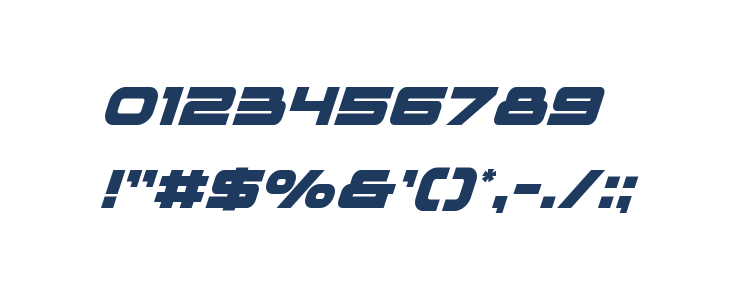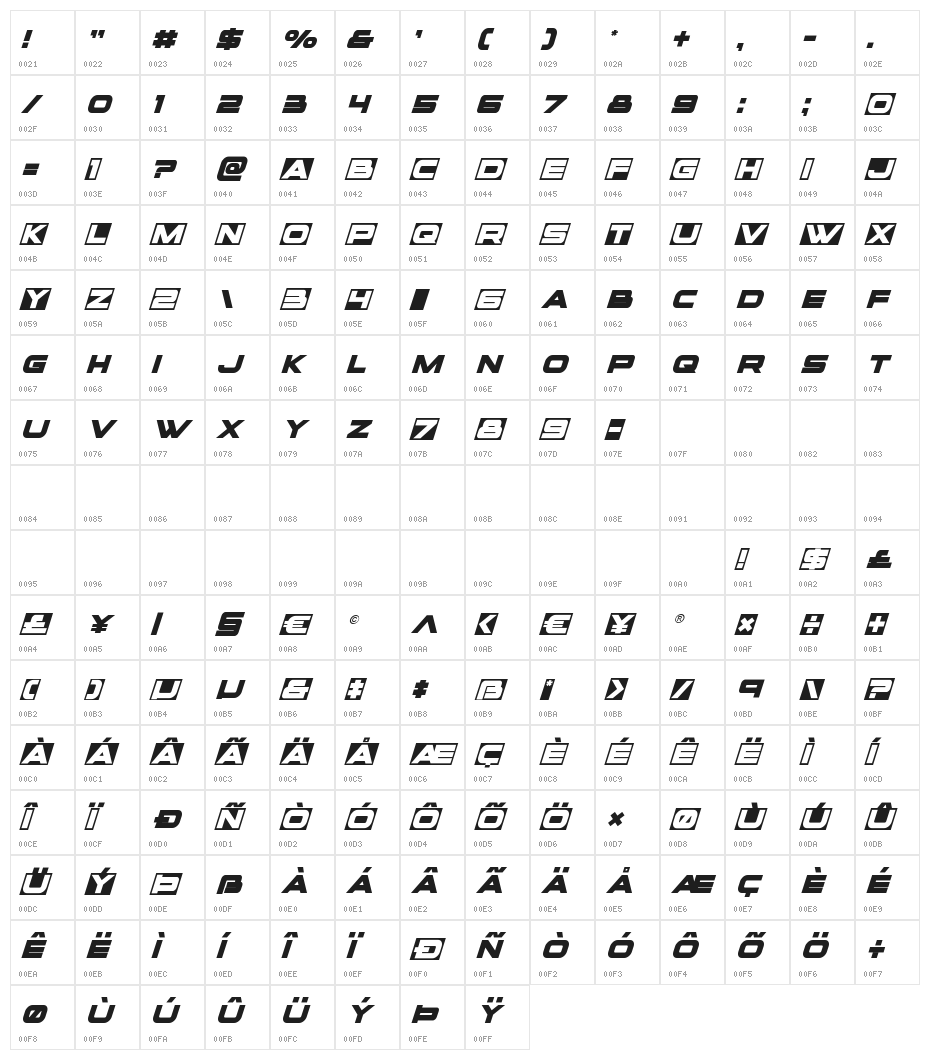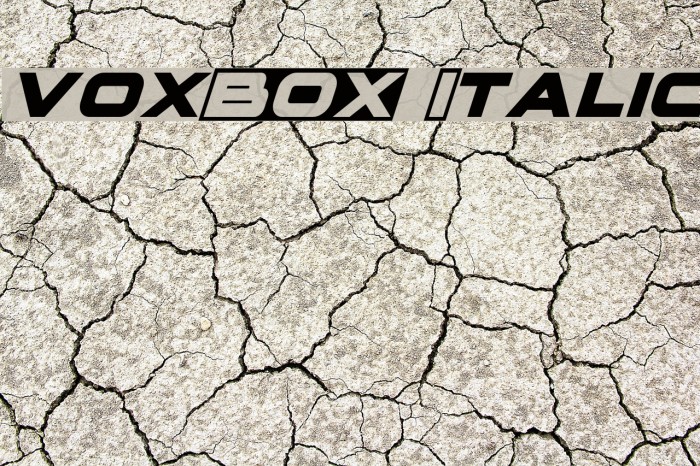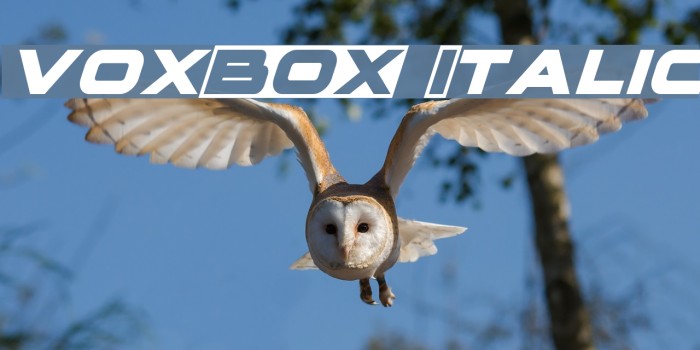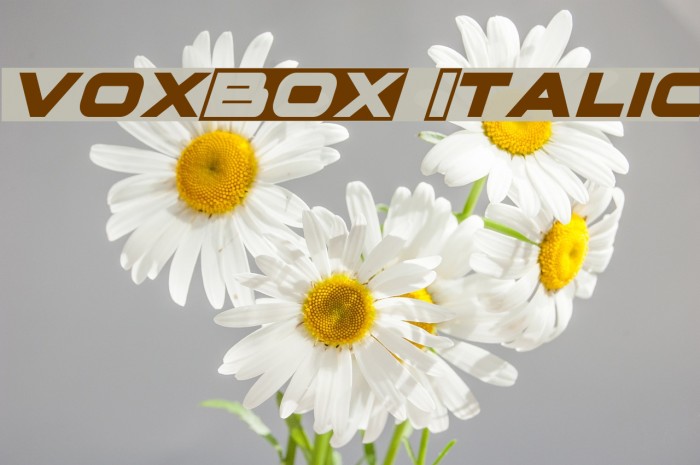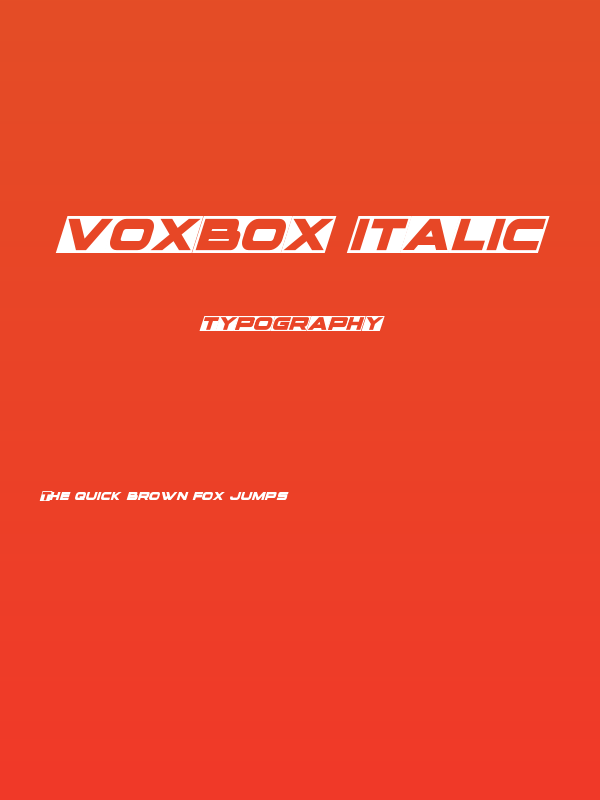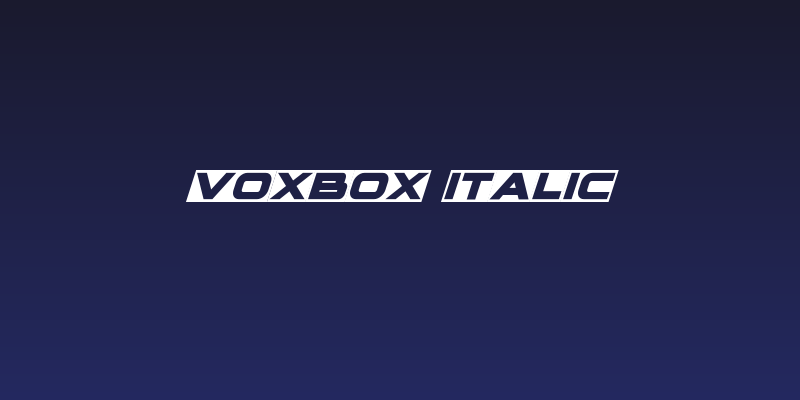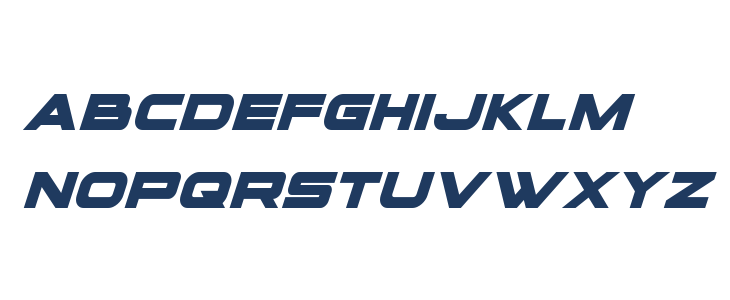
voxBOX Italic Font
voxBOX Italic Description
This font features a bold and dynamic italic style, characterized by its sharp angles and strong geometric forms. The uppercase letters are designed with a forward-leaning slant, giving a sense of motion and speed. The lowercase letters maintain the same angular aesthetic, ensuring consistency throughout. Numbers and special characters are crafted with the same attention to detail, providing a cohesive look. The font's design is modern and sleek, making it suitable for projects that require a contemporary and energetic feel. Its boldness and italic nature make it stand out, perfect for catching attention.
| Proposed Projects | Ideal for sports branding, automotive designs, futuristic themes, and dynamic advertising campaigns. |